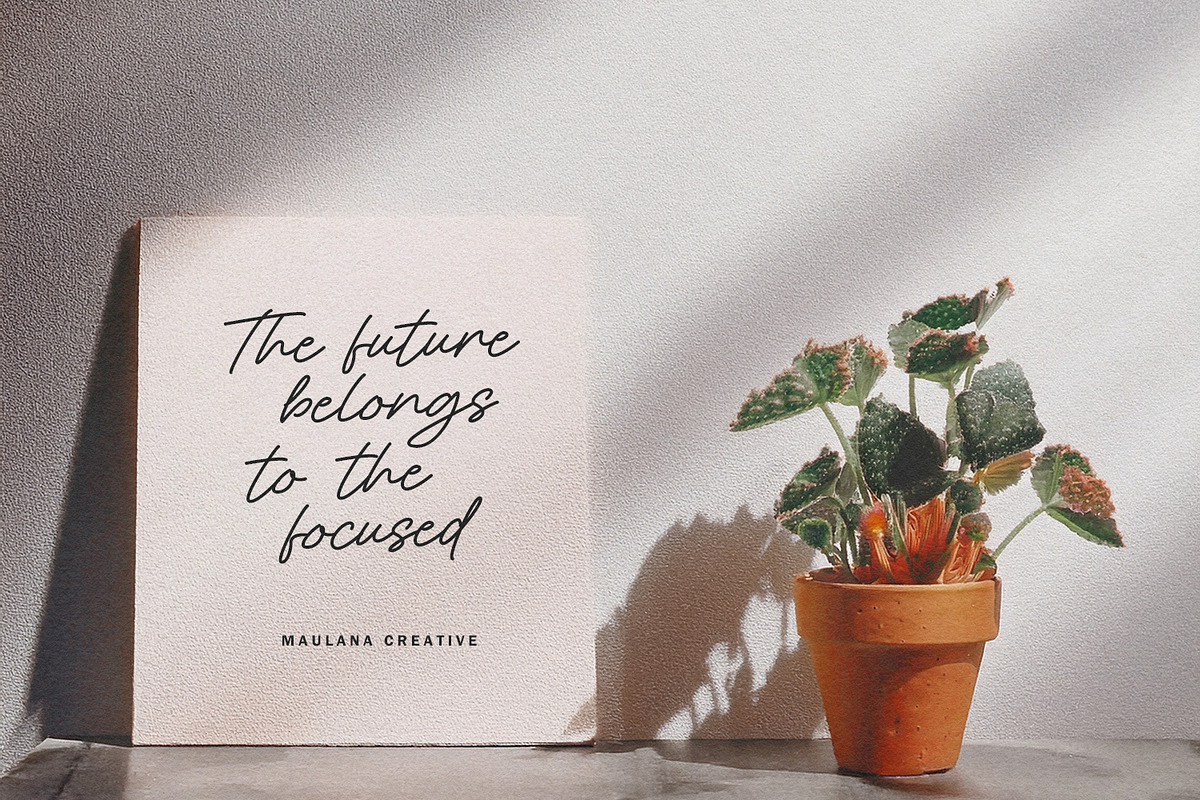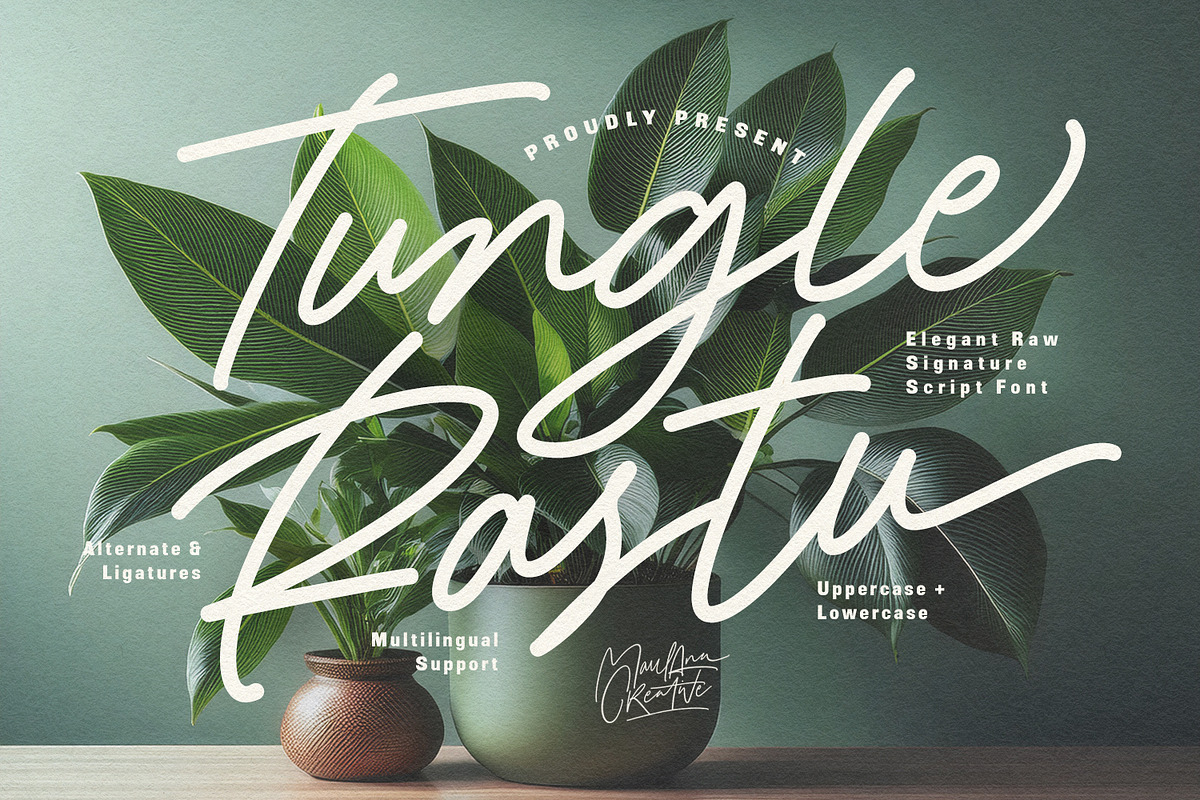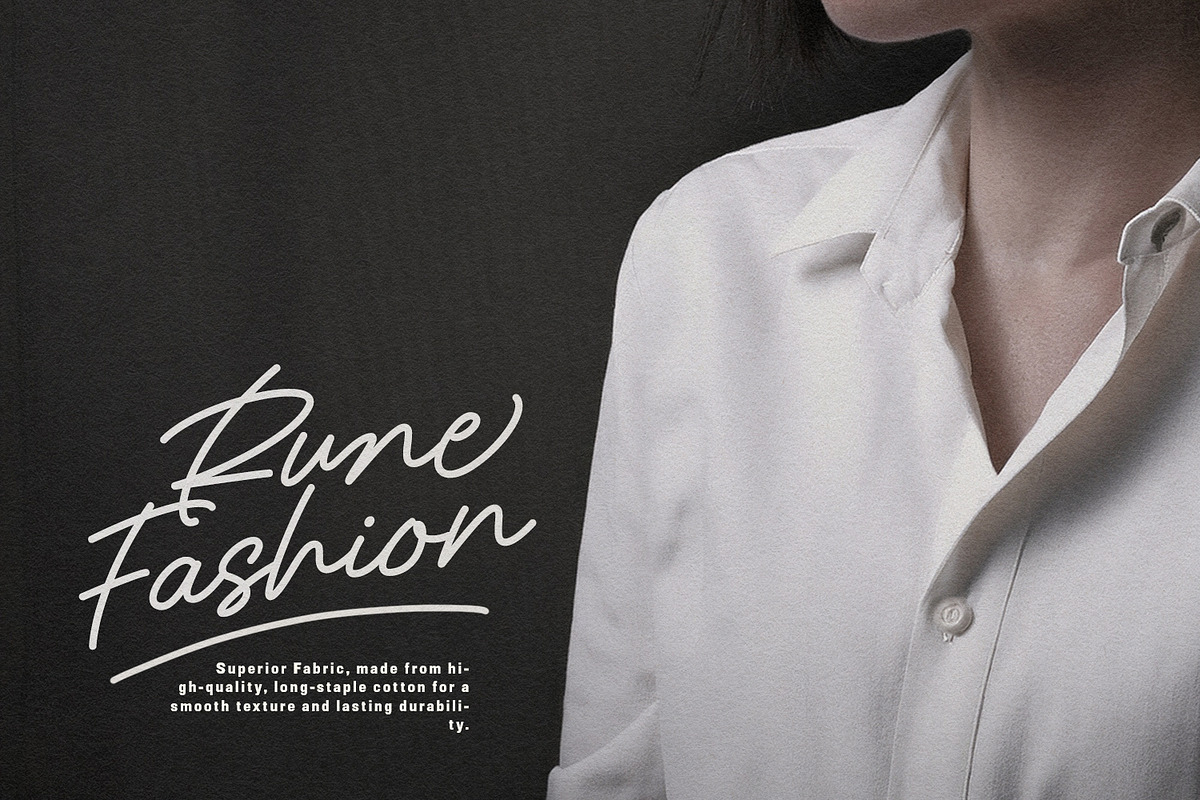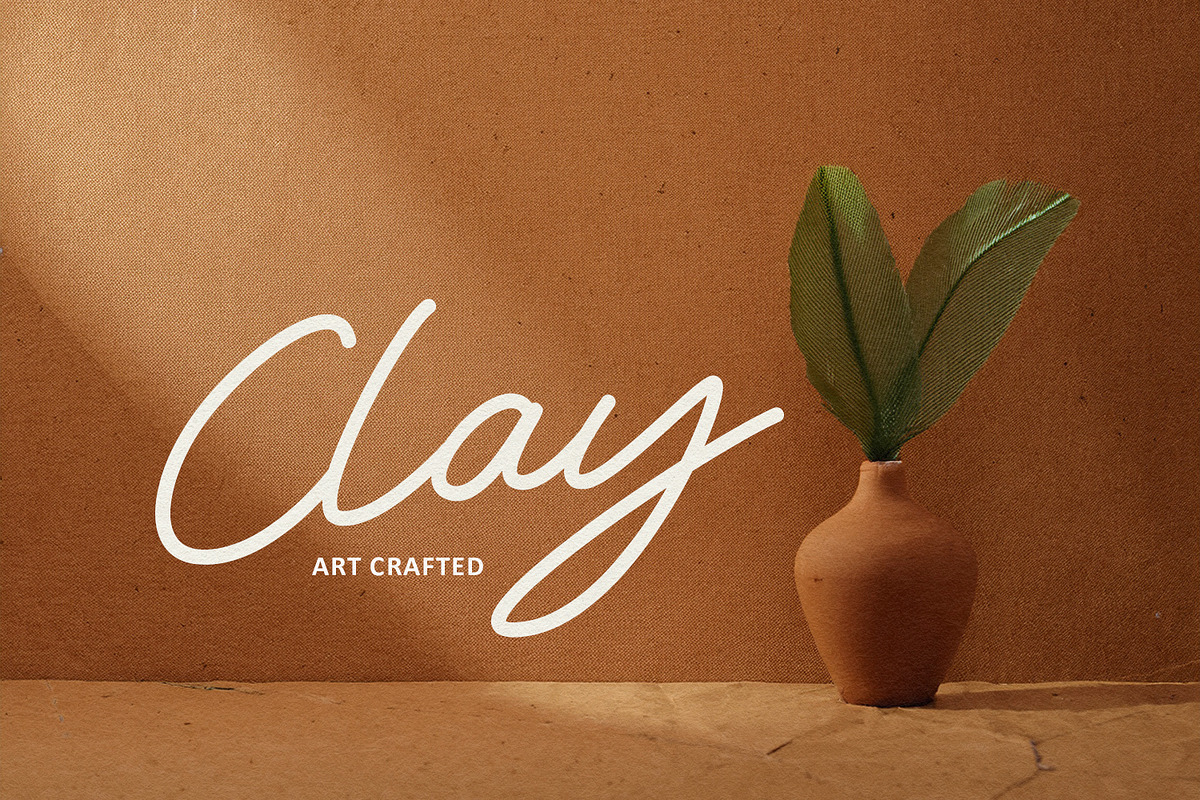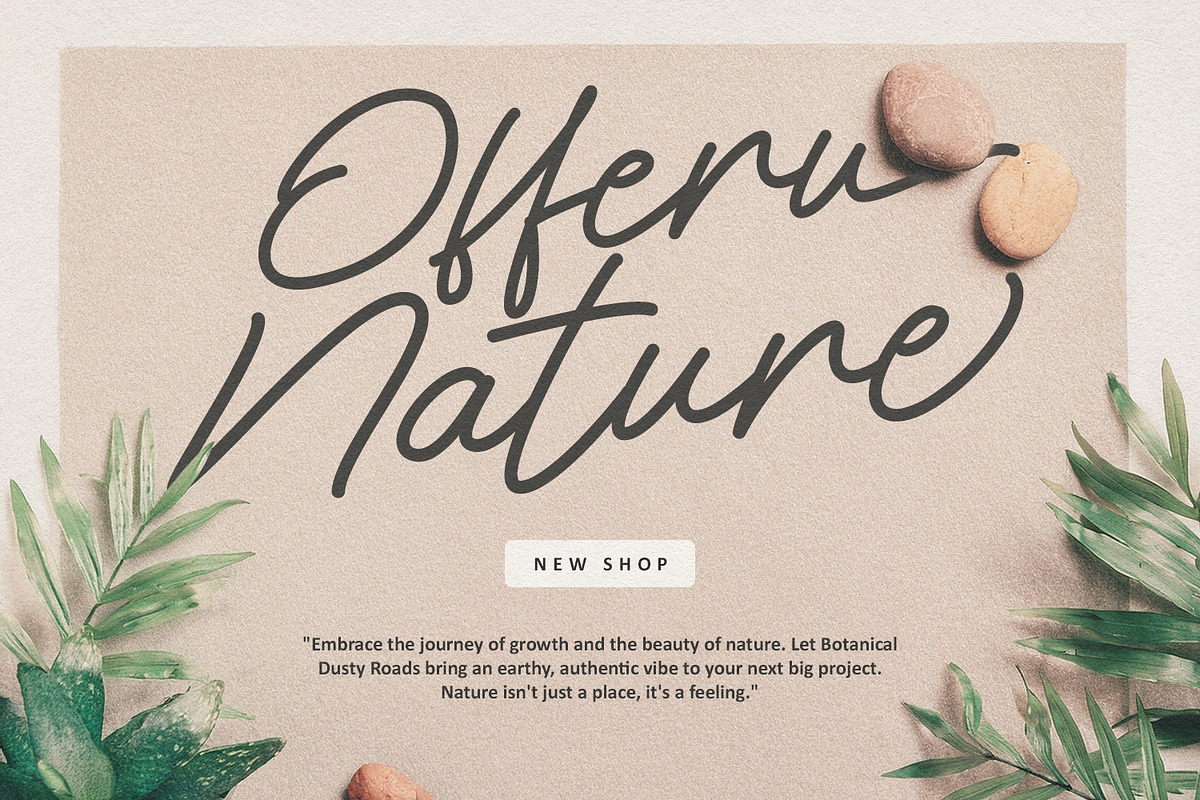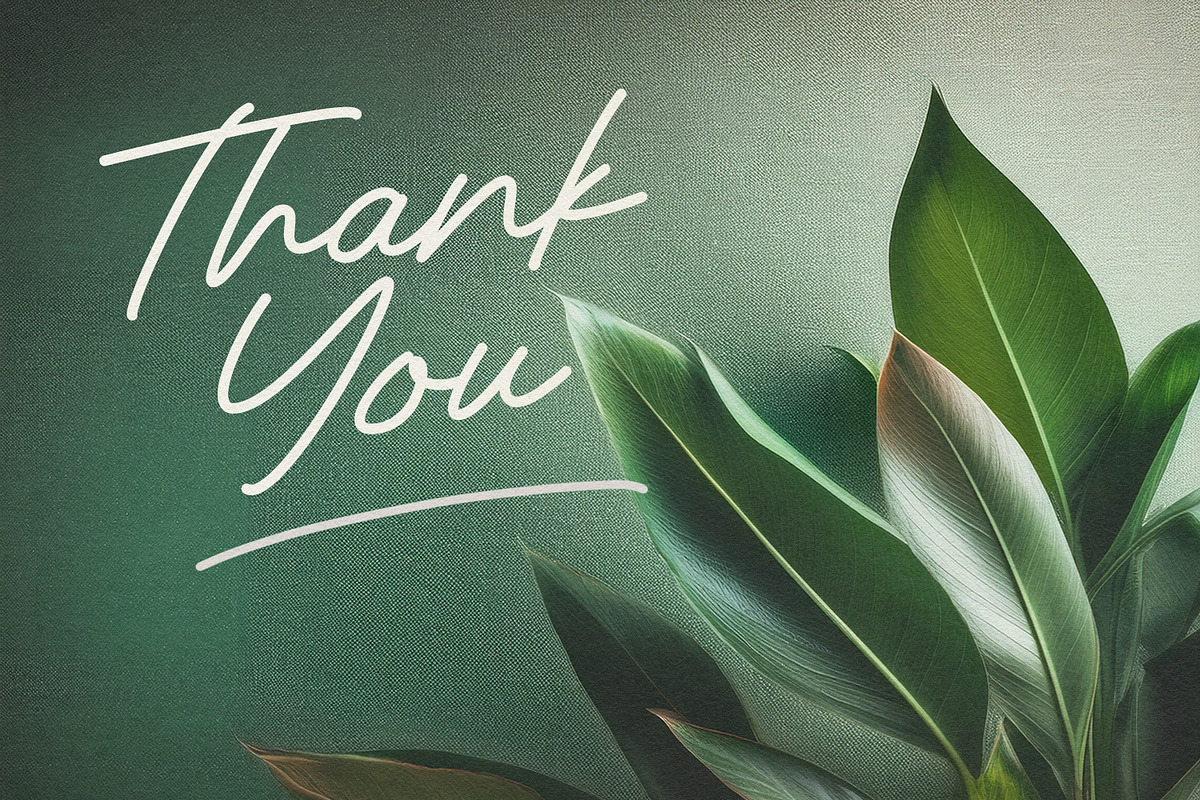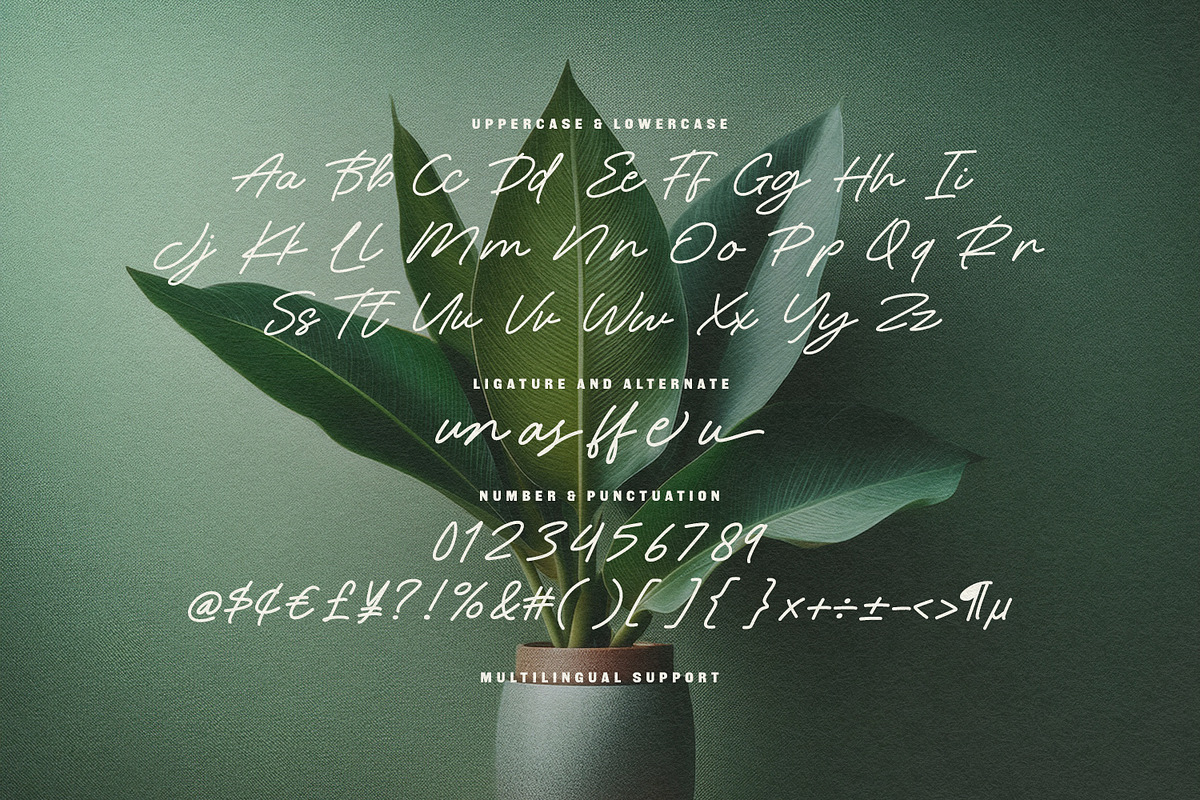
Tungle Rastu Raw Signature Script
Tungle Rastu is a sophisticated signature script font that strikes a perfect balance between raw, organic strokes and elegant flow. Designed to mimic natural handwriting, it features stylish ligatures and alternates that give any design an authentic, handcrafted feel. Its versatile "raw" aesthetic makes it ideal for high-end branding, fashion logos, wedding invitations, social media quotes, and lifestyle photography overlays. With full multilingual support and a comprehensive set of characters, Tungle Rastu brings a touch of effortless luxury to your creative projects.
- Full character set (Uppercase & Lowercase)
- Numbers, Punctuation, and Symbols
- Ligature and alternates for a natural handwriting flow